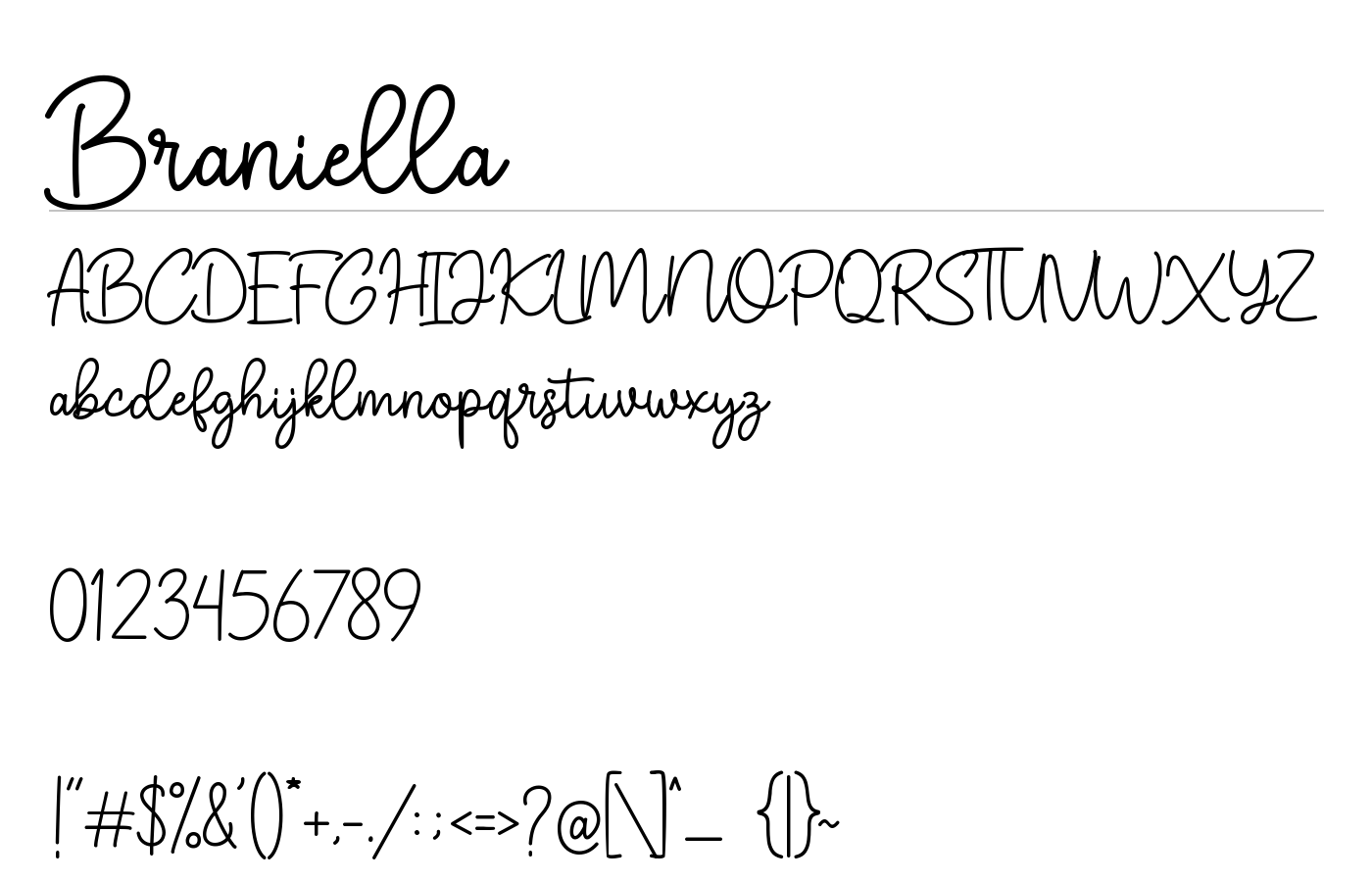
Braniella is a playful and charming handwritten script font characterized by its light weight and airy, elongated letterforms. Its smooth, organic strokes and casual style give it a friendly and approachable feel, making it perfect for personal branding, invitations, and creative projects that seek warmth and personality. This font works well in designs that want to convey an informal, whimsical vibe while maintaining elegance and readability.
Braniella Font
About Braniella Font
| Designer | yudi safiyudin |